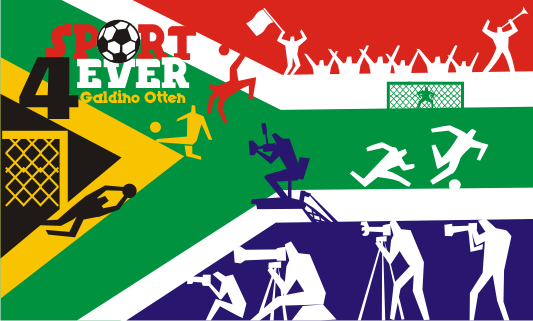
This Type also include new icons for the winter olympic games. Sports involve activities, rules and customs, by competitively there is a possibility of winning or losing what excites the practitioners. Sports also involve equipment and activities organized events tend to bring people together in one goal, to compete. The icons that were created based on different modalities and aims to illustrate the various media: Print, Television and Web. |